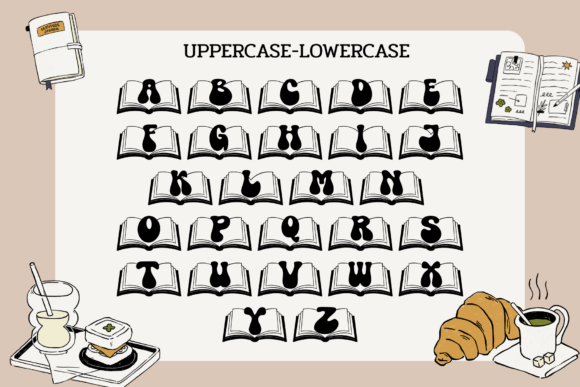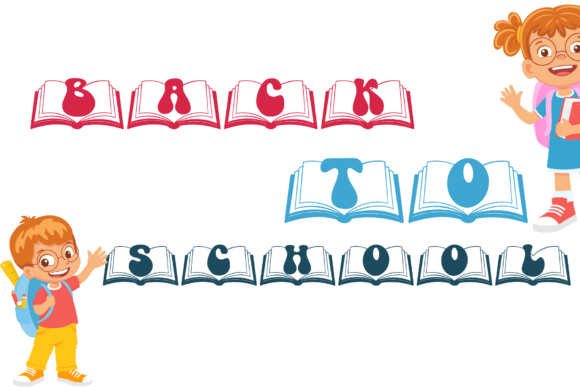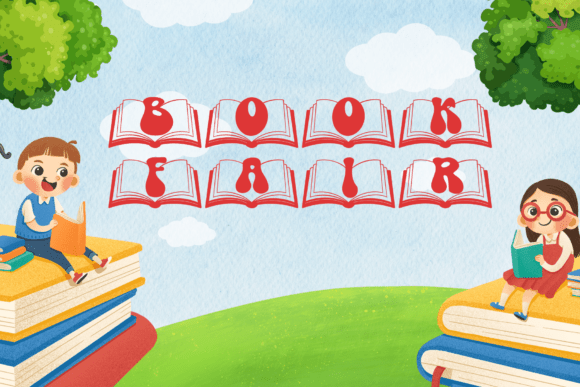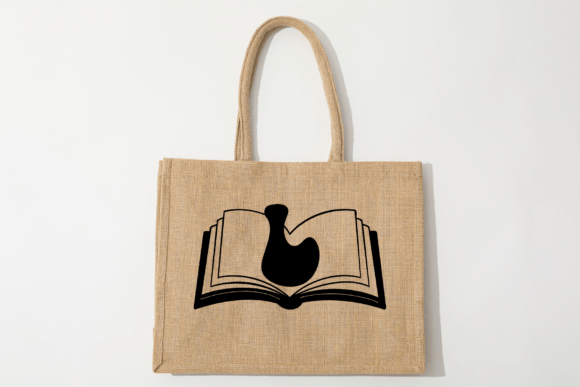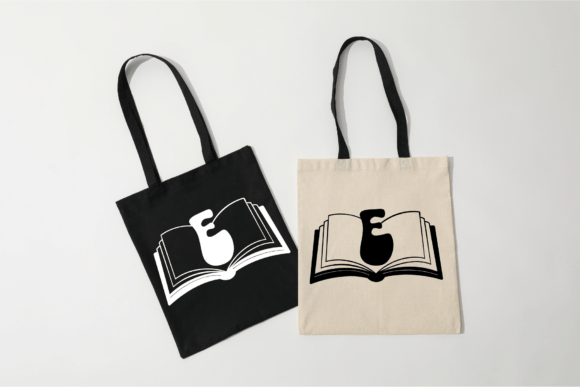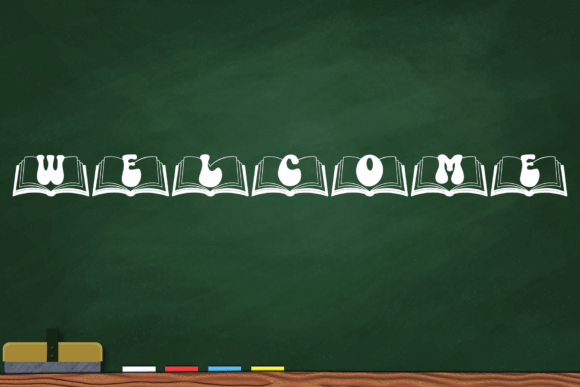
Introduction to Letters of Literacy Font
Have you ever been brainstorming a creative project and suddenly a spark of inspiration hits you? Maybe it’s the perfect font that elevates your design from good to great. For designers, the right font can be the missing piece that brings a project to life. And that’s exactly what the Letters of Literacy Font does – it adds a touch of storytelling charm and whimsy to any design.
Imagine a font where every character sits comfortably inside an open book illustration, waiting to be used in your next design. That’s the magic of the Letters of Literacy Font, a high-quality design resource that’s perfect for children’s projects, educational materials, and book-themed designs. With its unique style and transparent background, this font is a must-have for any designer looking to add a playful touch to their work.
Key Features of Letters of Literacy Font
- High-quality design resource ideal for creative projects, including educational materials and children’s content.
- Unique, playful design with transparent background, allowing for flexibility in creative composition.
- Perfect for use in digital and print media, including websites, presentations, and educational materials.
- Includes a range of letters and characters, making it suitable for various languages and creative applications.
- Suitable for use in a variety of creative projects, from educational materials to children’s book design and more.
Honest Review: Letters of Literacy Font
I recently stumbled upon the Letters of Literacy Font, and I must say it’s a game-changer for any creative project that requires a high-quality, easy-to-read font. This design resource is a treasure trove of elegant lettering, perfect for educational materials, branding, or even a personal project.
- ✨ The font is incredibly versatile and can be used in a variety of contexts.
- ✨ The transparent background makes it easy to customize and pair with any design element.
- ✨ The Letters of Literacy Font is highly legible, even at small font sizes.
- ⚠️ The font is only available in a limited range of sizes, which may not be suitable for all design projects.
- ⚠️ Some users may find the font too simplistic, lacking the complexity and flair of other design resources.
Overall, I’m impressed with the Letters of Literacy Font. It’s a solid choice for designers looking for a high-quality, easy-to-use font that’s perfect for educational materials or creative projects. While it may have some limitations, the benefits far outweigh the drawbacks, making it a great addition to any design library.
The Letters of Literacy Font is a high-quality design resource perfect for creative projects. With its transparent background, this font is versatile and easy to use in various applications.
For the best results, use the Letters of Literacy Font on a high-contrast background to make the text stand out. You can also experiment with different font sizes and styles to create a unique look.
The Letters of Literacy Font is perfect for creating educational materials, such as worksheets, posters, and presentations. It’s also great for designing branding materials, like business cards and brochures.